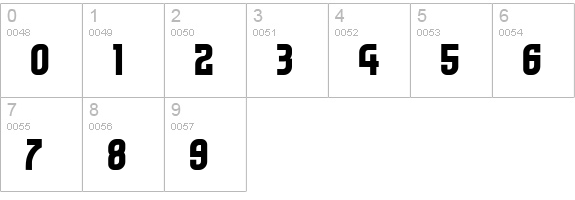
Komikazoom Font Details
Komikazoom font is a fun and playful typeface that adds a touch of whimsy to any design project. With its bold and rounded characters, Komikazoom is perfect for creating eye-catching headlines, posters, and logos. This font exudes a sense of energy and youthful charm, making it ideal for projects that require a lighthearted and modern feel. The best part? Komikazoom font is completely free to download at FontsMarket.com. Whether you're a professional designer looking to add a fresh element to your work or just someone who loves experimenting with different fonts, Komikazoom is a fantastic choice. Don't miss out on this opportunity to enhance your creative projects with this delightful and free font!